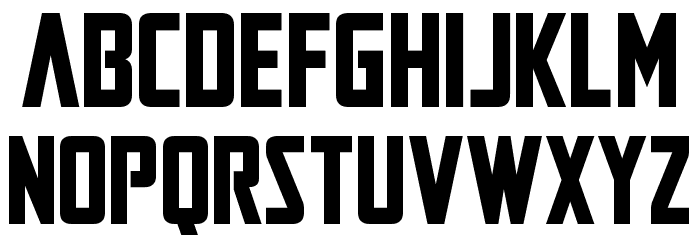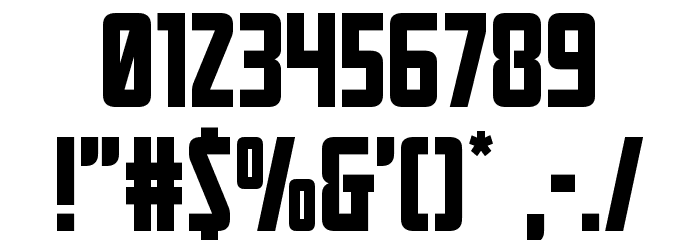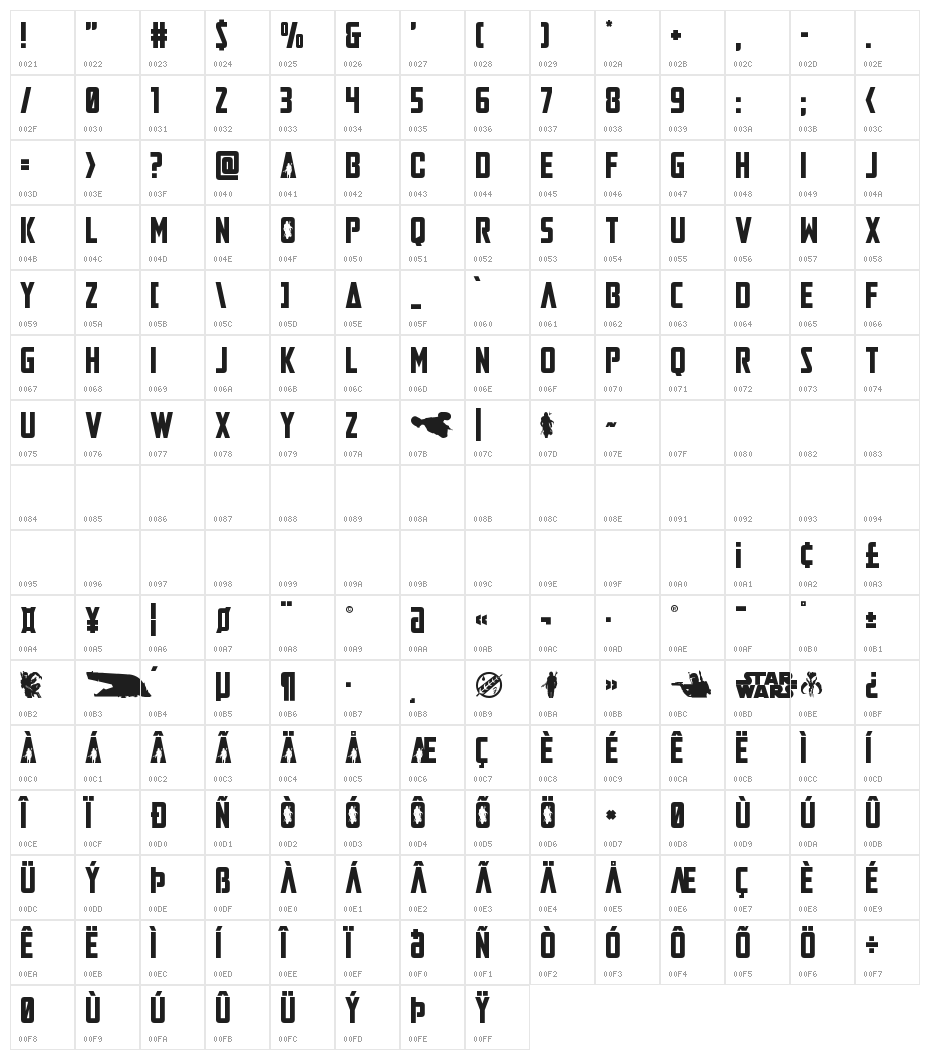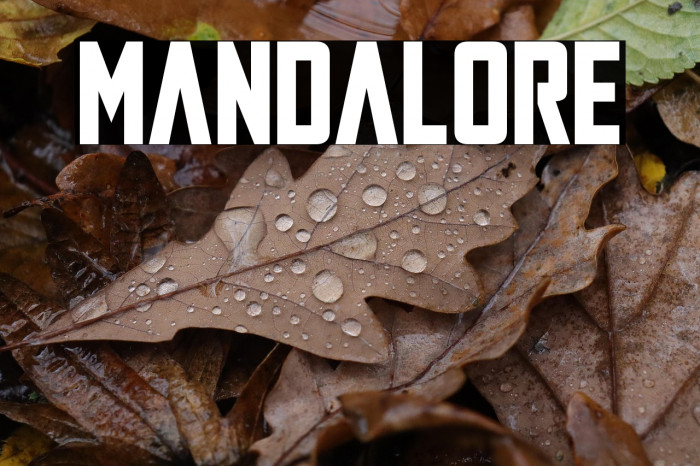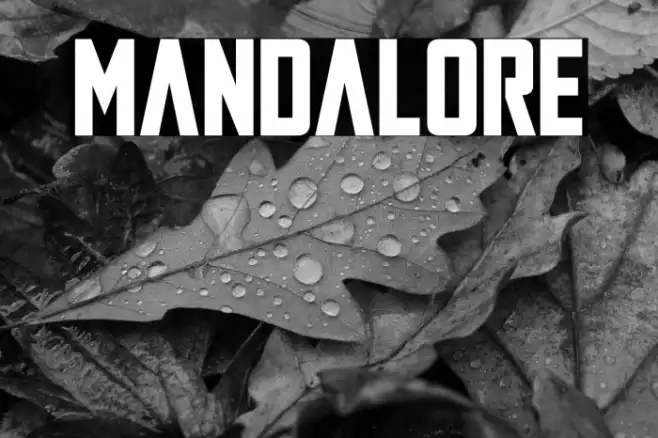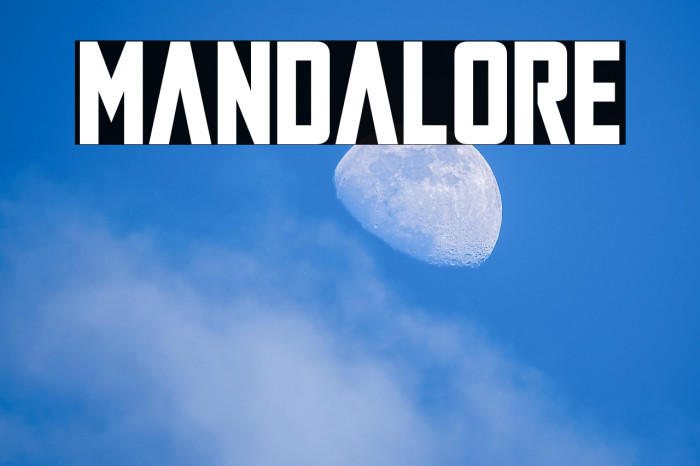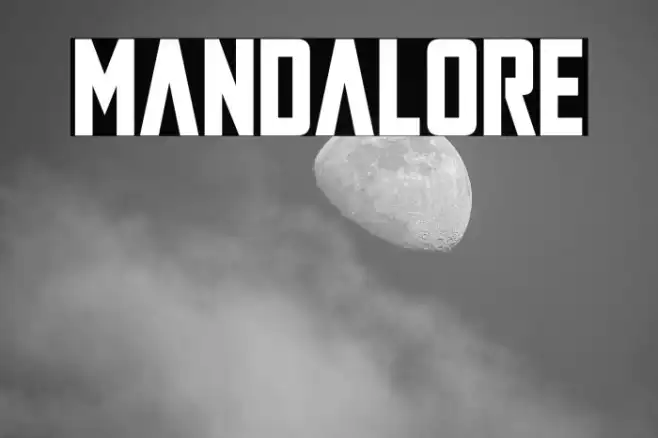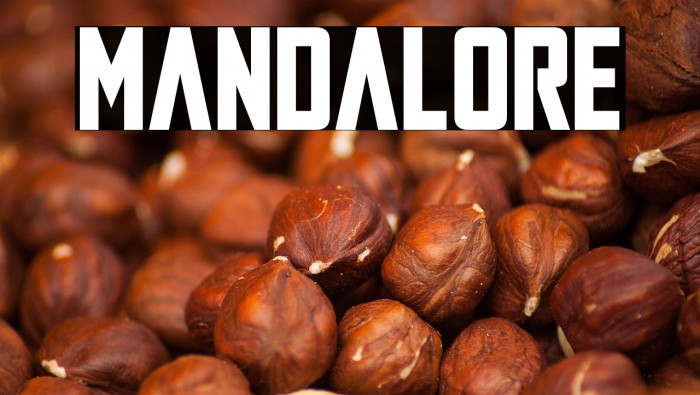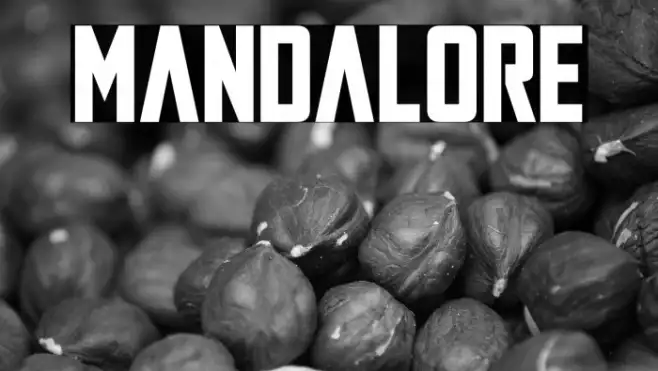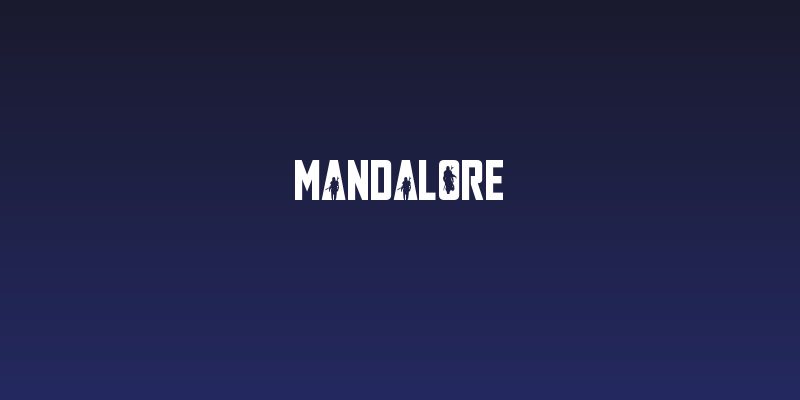
Mandalore Font
This font features a bold, geometric design with strong, angular lines and a futuristic aesthetic. The characters are uniformly wide, giving it a monospaced appearance, although it is not strictly monospaced. The uppercase letters are particularly striking, with a blocky, robust feel that suggests strength and stability. The lowercase letters maintain the same boldness, ensuring consistency across the typeface. Numbers and special characters are designed with the same attention to detail, making them easily legible and visually appealing. This font is ideal for projects that require a modern, impactful look.
A bold, geometric font with a futuristic and robust design.
- Proposed Projects: Ideal for sci-fi themed projects, video game titles, posters, and branding that requires a modern and strong visual impact.